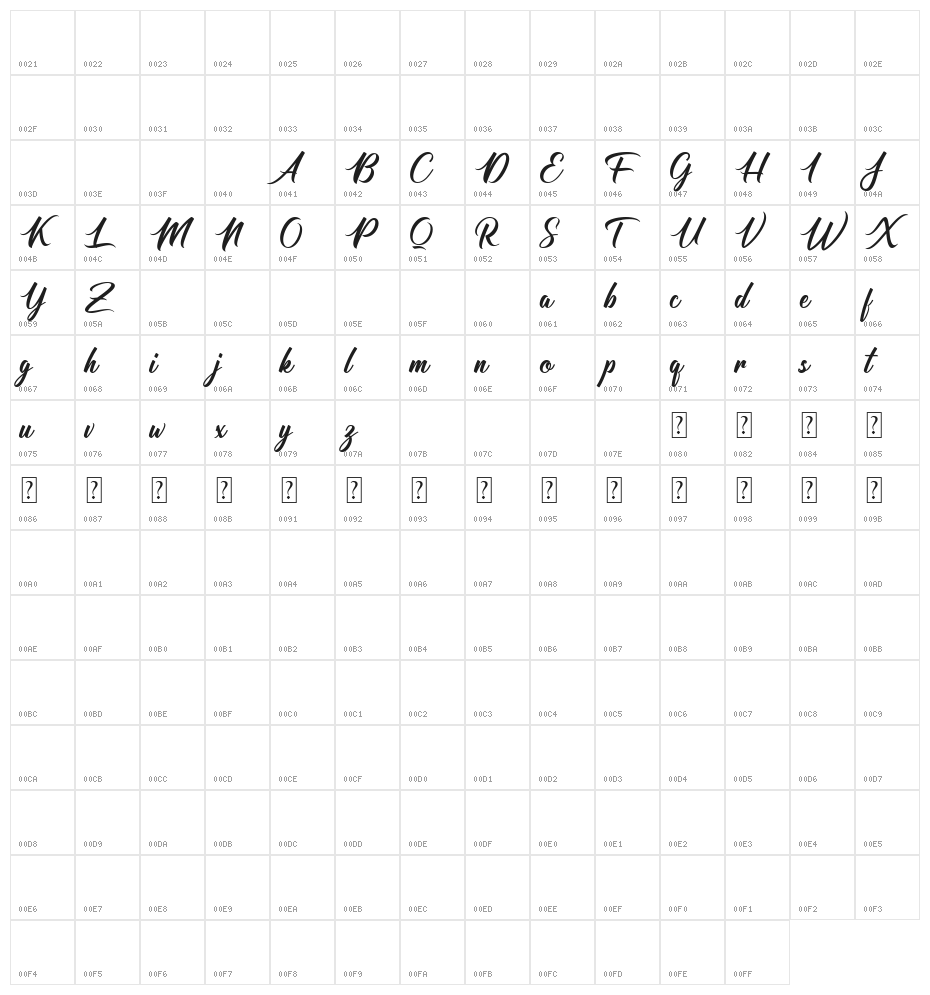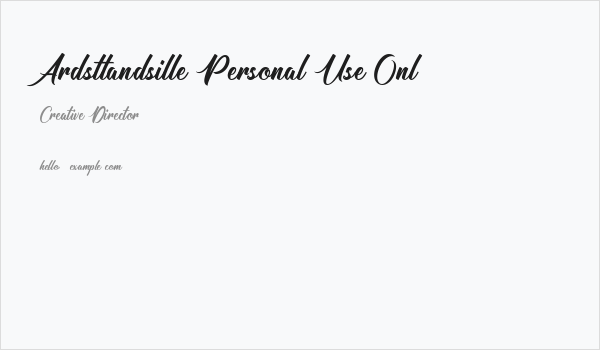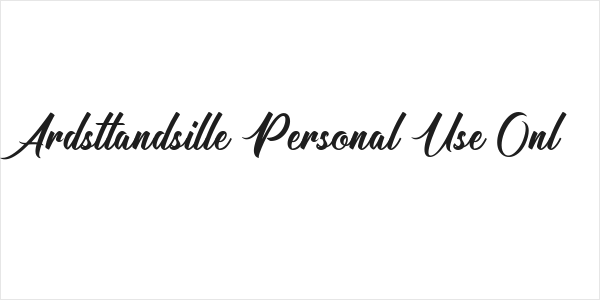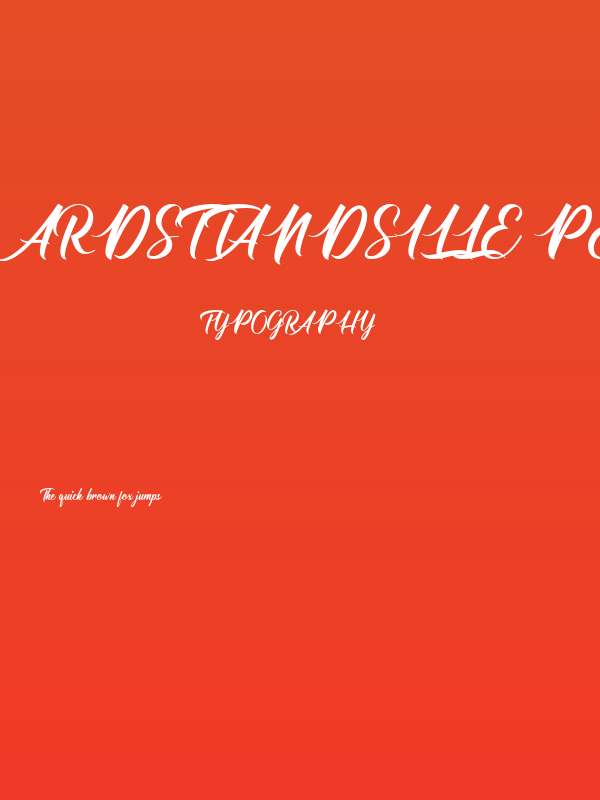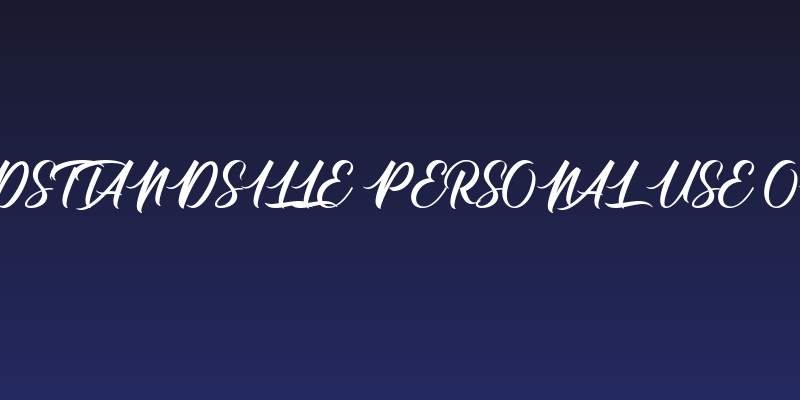
Ardsttandsille Personal Use Onl Font
Ardsttandsille Personal Use Onl Description
This font exhibits a dynamic and flowing script style, characterized by its elegant, cursive letterforms. The uppercase letters are particularly ornate, with sweeping curves and flourishes that give a sense of movement and grace. The lowercase letters maintain a consistent style, with smooth connections between characters, enhancing the overall fluidity. The font's bold strokes and high contrast between thick and thin lines add to its dramatic appearance, making it suitable for eye-catching designs. The spacing between characters is tight, contributing to its cohesive and unified look.
| Proposed Projects | Ideal for wedding invitations, branding, logo design, and elegant packaging. |